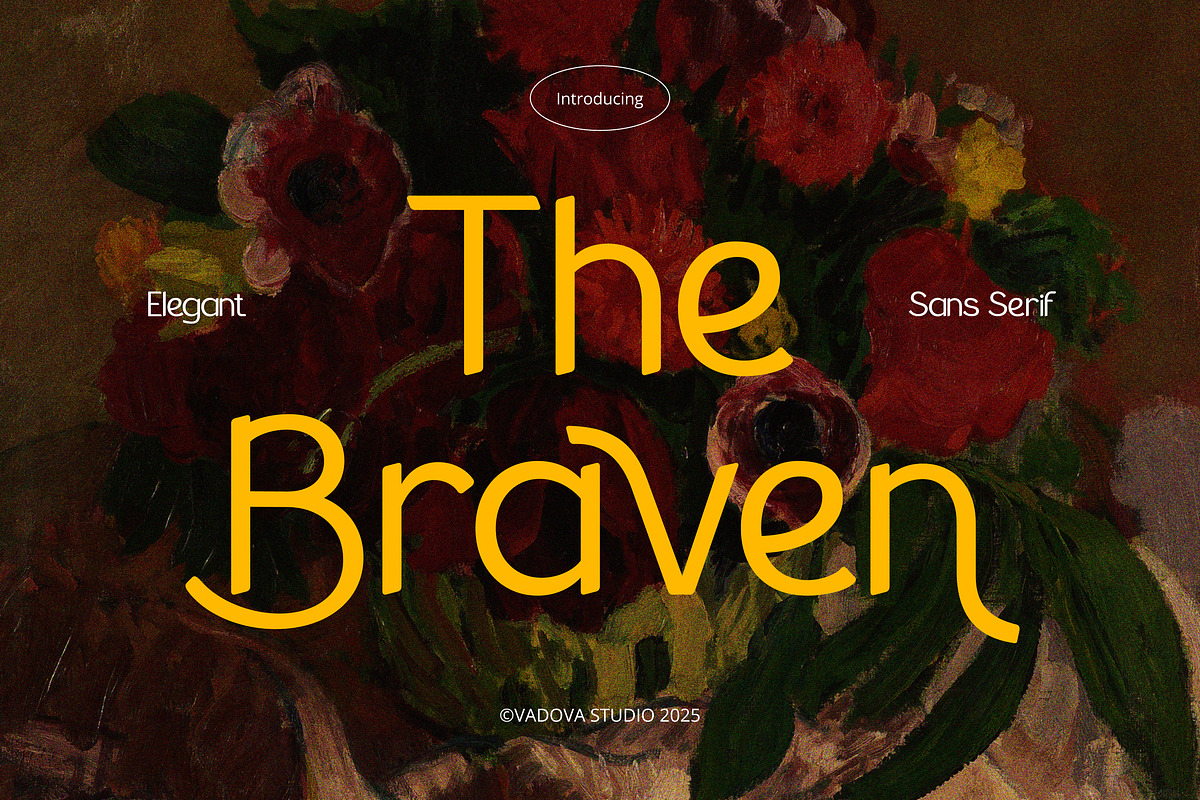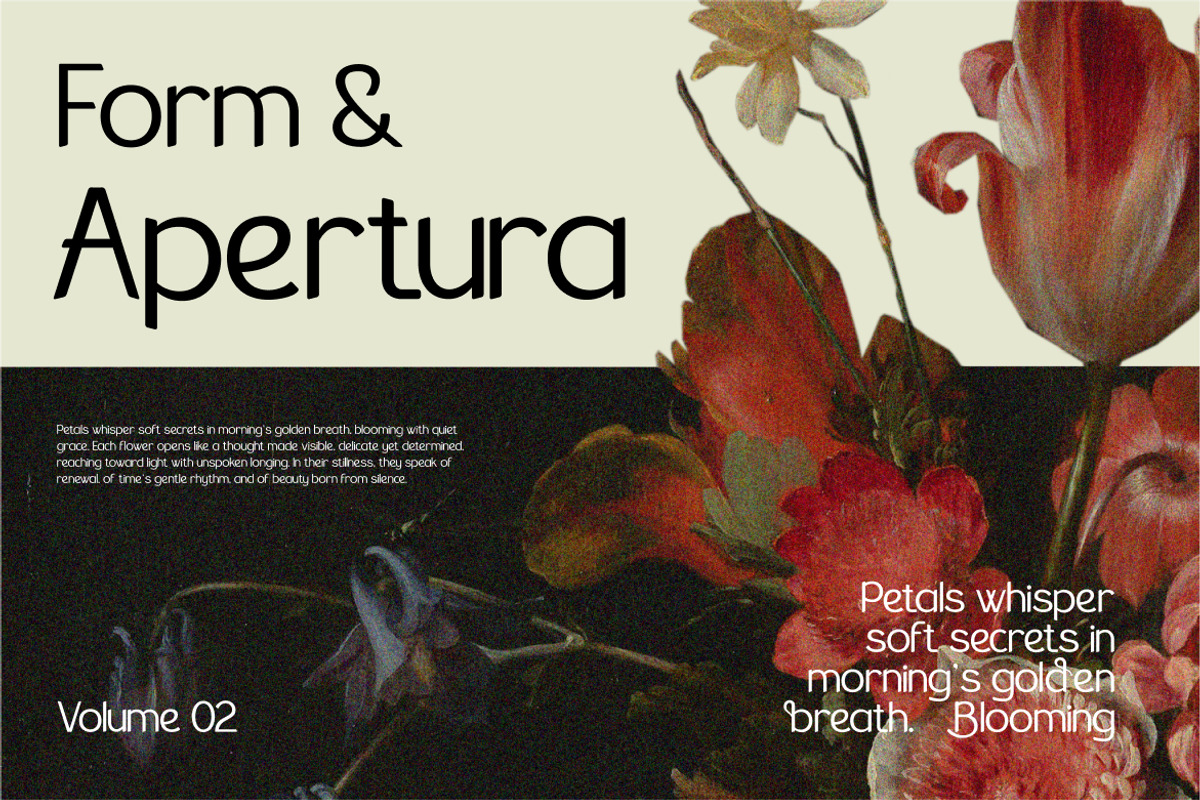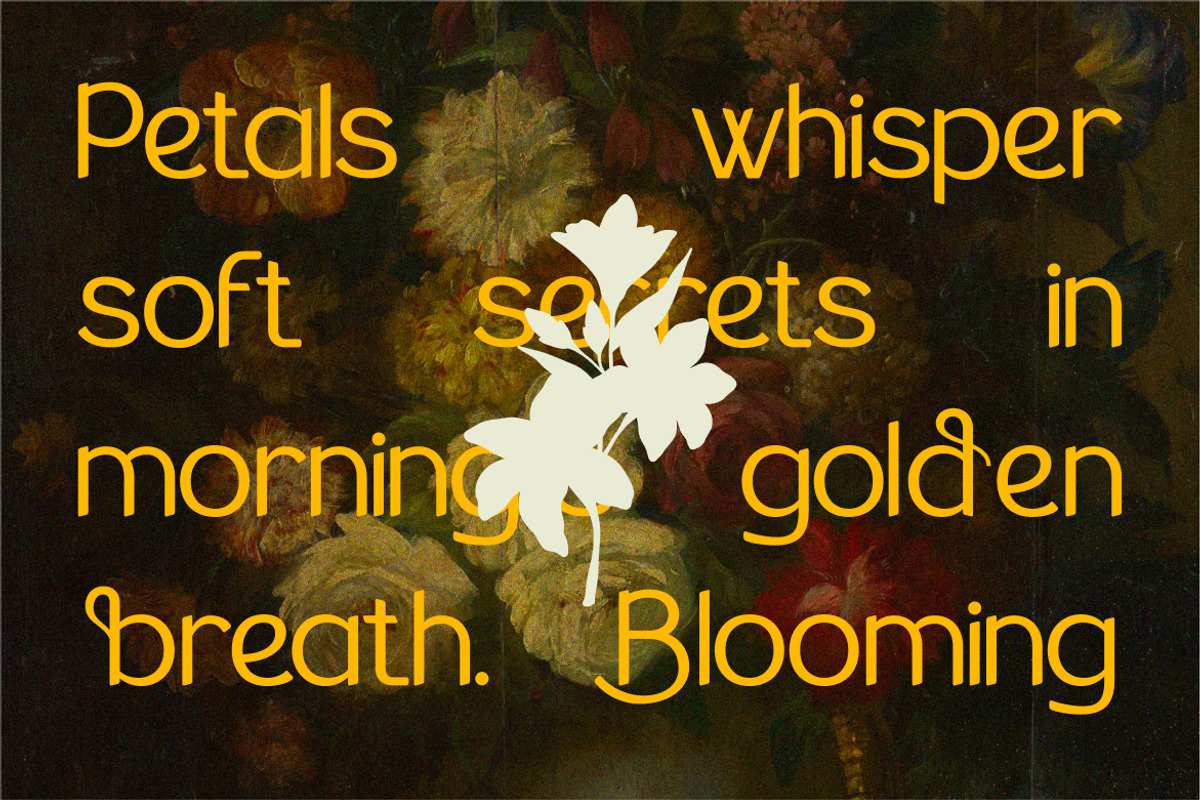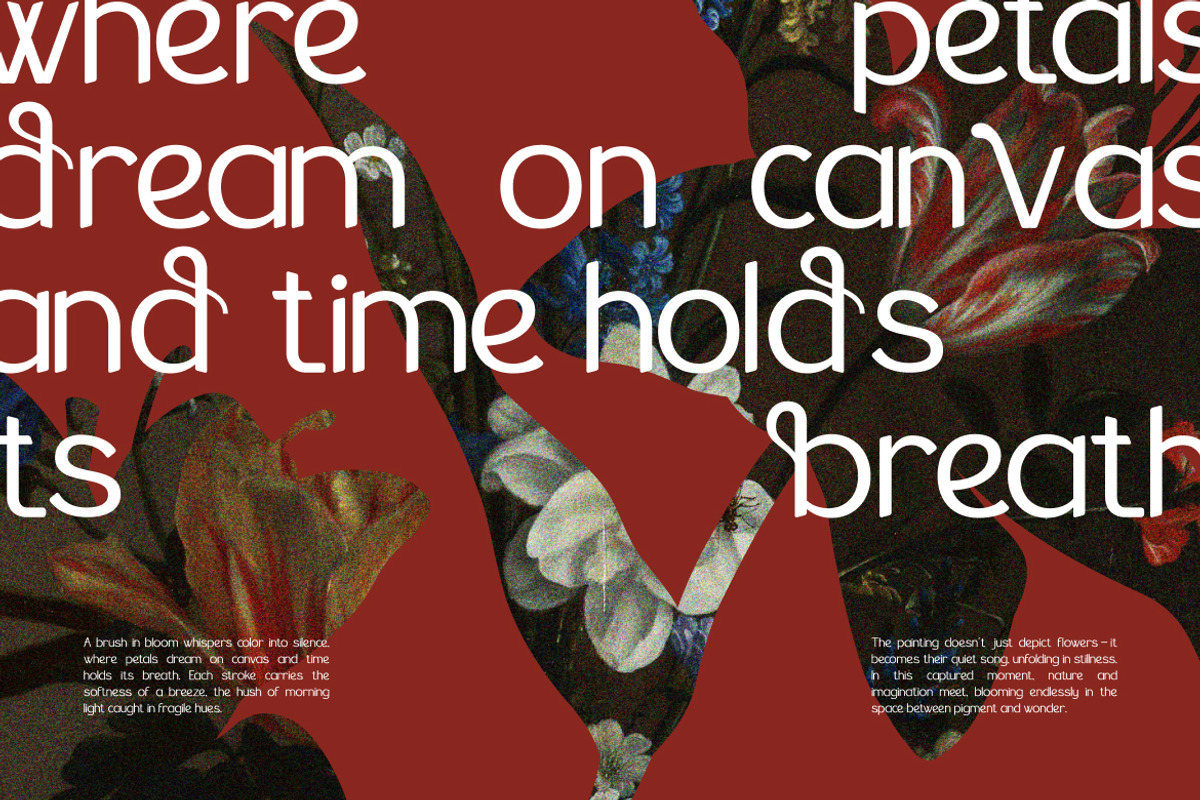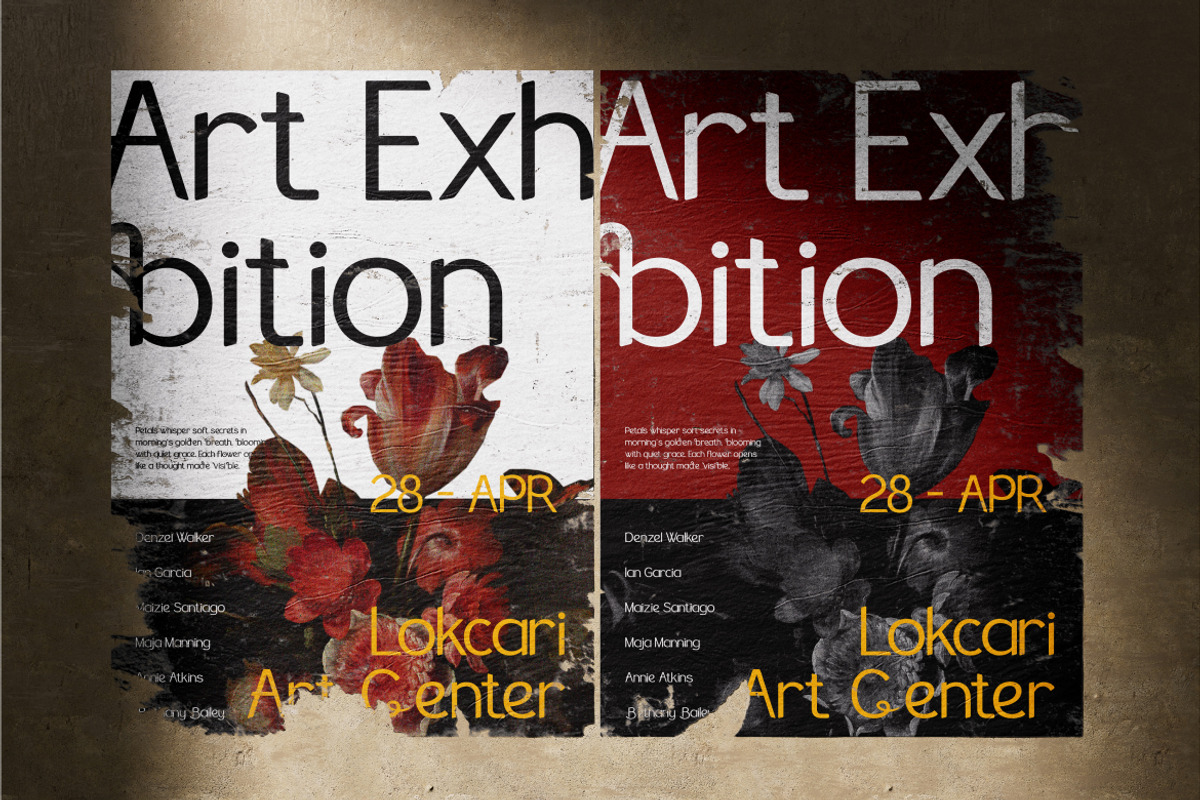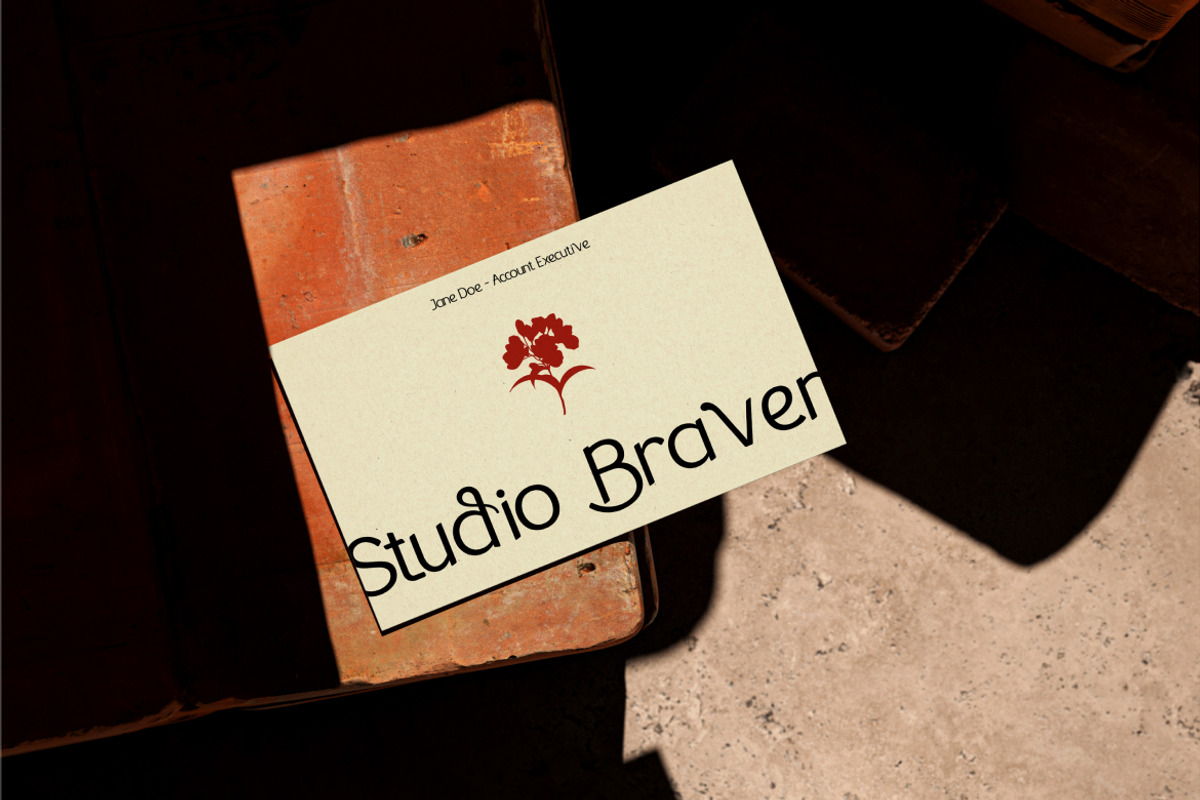
The Braven – Elegant Sans Serif
The Braven is a bold yet elegant sans serif that brings personality and charm into modern typography. Its sleek lines are enhanced with unique curves and subtle artistic details, giving every word a distinctive presence. This typeface strikes the perfect balance between contemporary design and expressive creativity.
Built for versatility, The Braven adapts seamlessly to projects that demand style and impact. From editorial layouts to branding campaigns, lifestyle packaging, and digital graphics, this font ensures your message is delivered with clarity and confidence.
Why Designers Love It:
Elegant sans serif with stylish, expressive curves.
Unique character details for a creative and modern identity.
Balanced readability across digital and print media.
A versatile font that blends professionalism with personality.
Uppercase & Lowercase Letters
Alternates & Ligatures for stylistic options
Best Use Cases:
Editorial Headlines & Magazine Covers
Fashion & Lifestyle Branding
Logo & Identity Design
Posters & Promotional Graphics
Creative Packaging & Labels
Digital Ads & Social Media Content